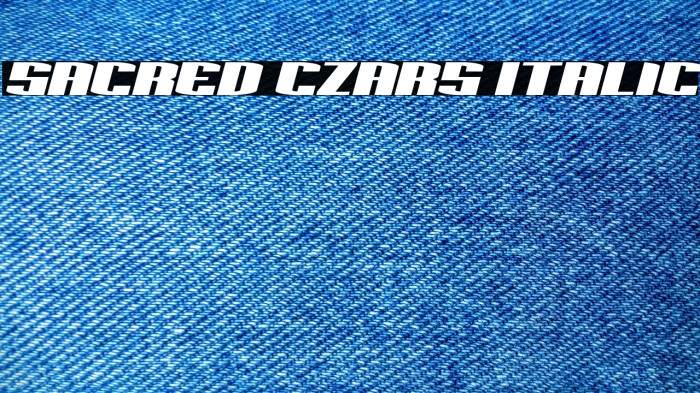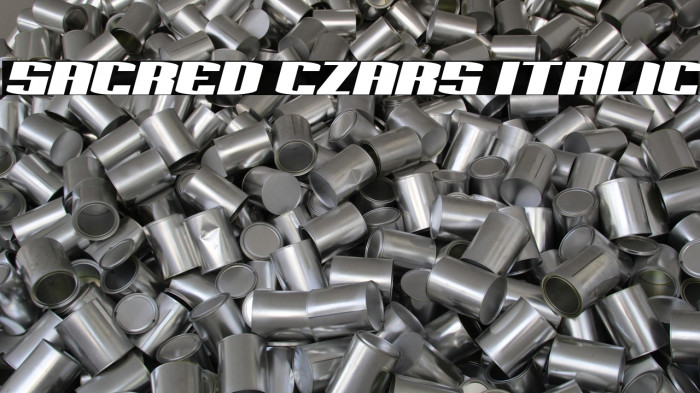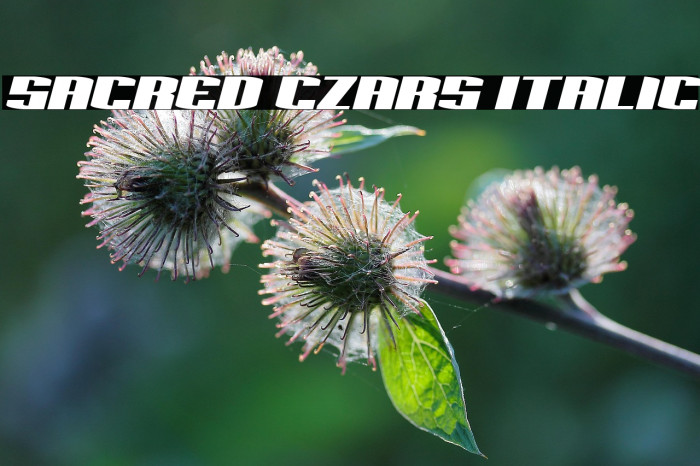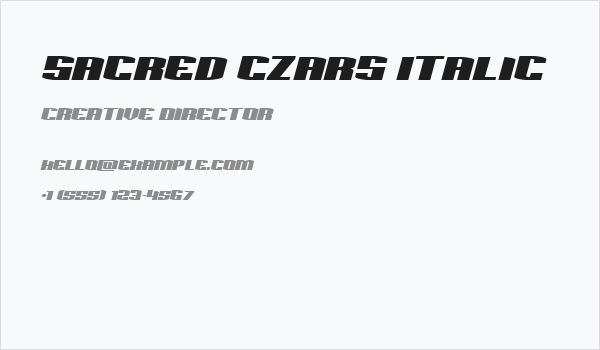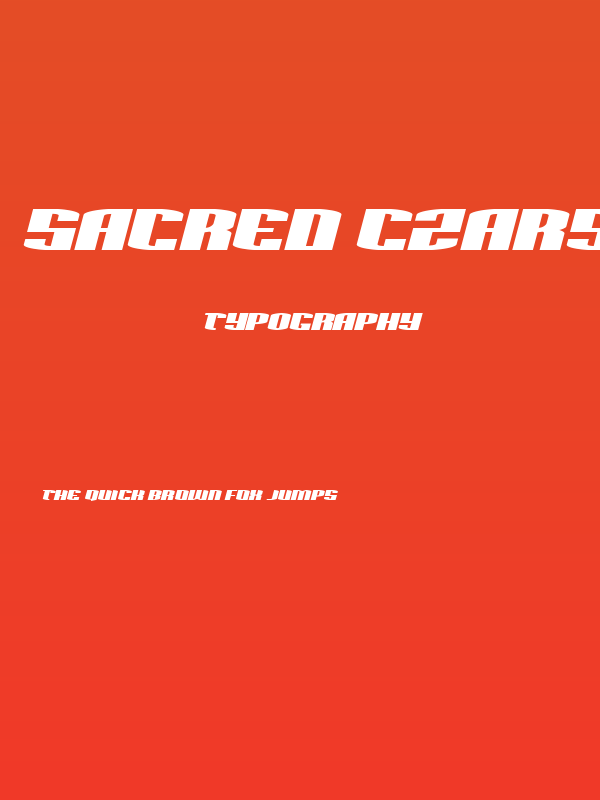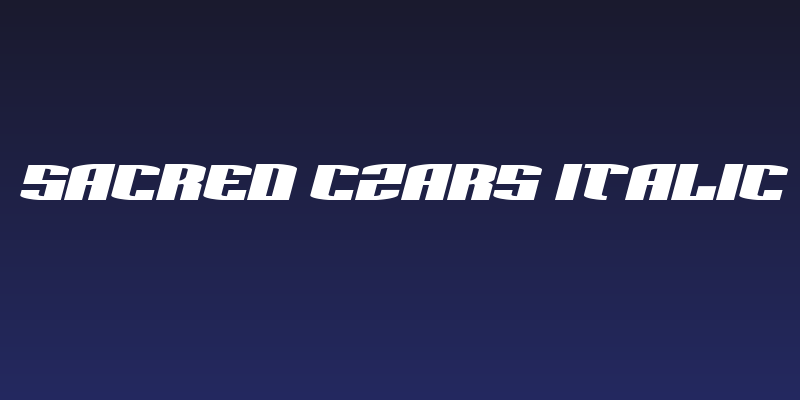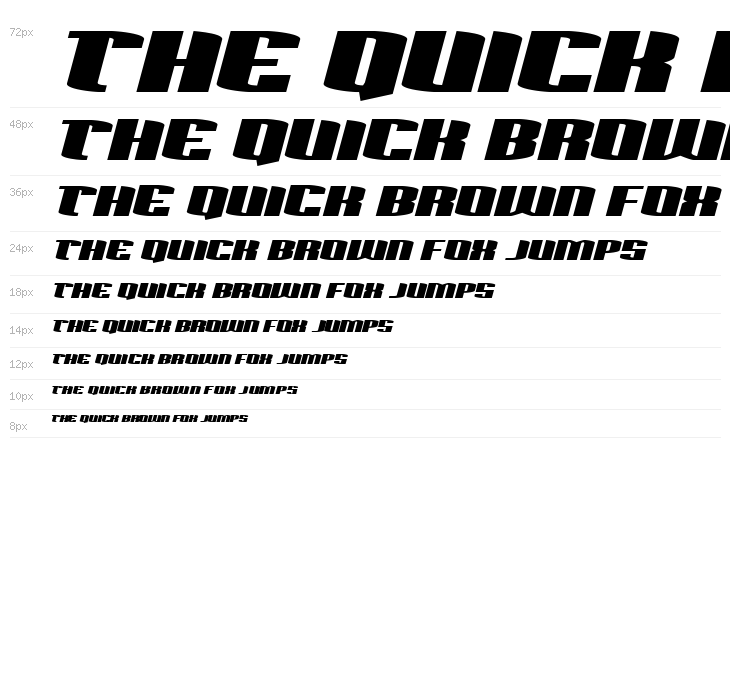
Sacred Czars Italic Font
Sacred Czars Italic Description
This font features a bold and dynamic design with a strong italic slant, giving it a sense of motion and energy. The characters are wide and have a distinct geometric style, with sharp angles and clean lines that create a modern and futuristic appearance. The uppercase and lowercase letters maintain a consistent style, while the numbers and special characters complement the overall aesthetic. The font's boldness and unique design make it stand out, ideal for projects that require a striking visual impact.
| Proposed Projects | Ideal for branding, posters, headlines, and any design project that requires a bold and modern typeface. |